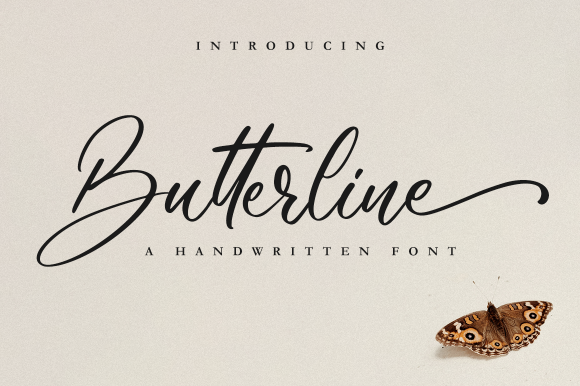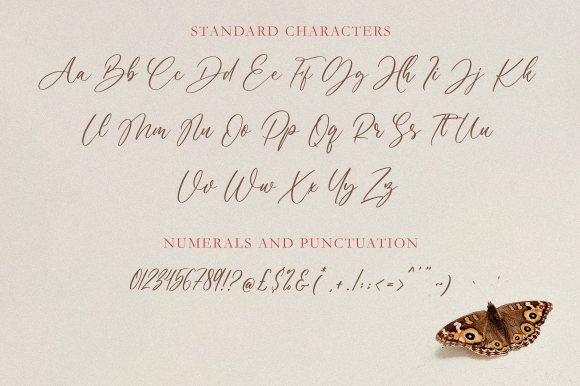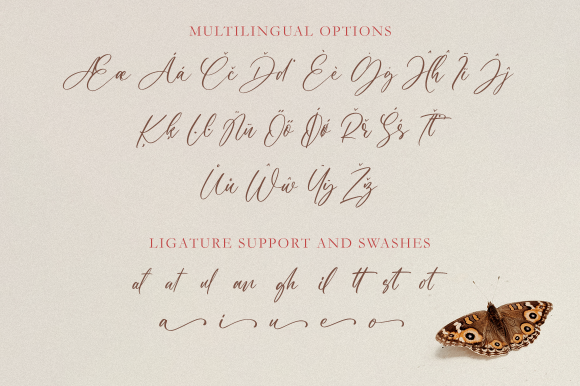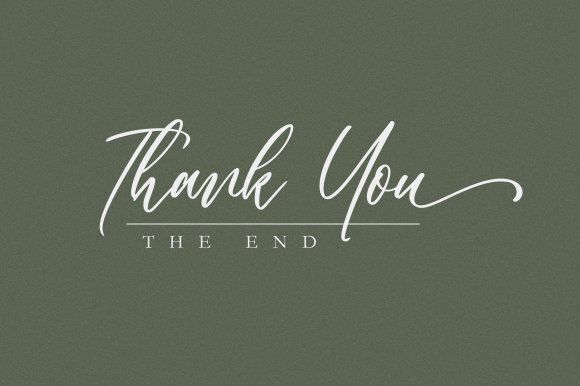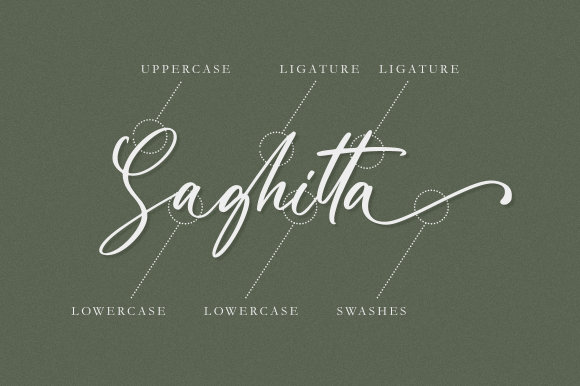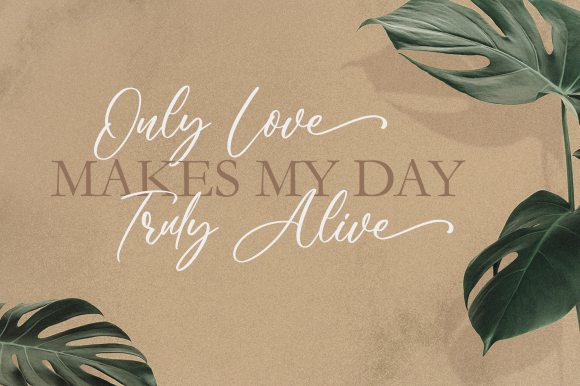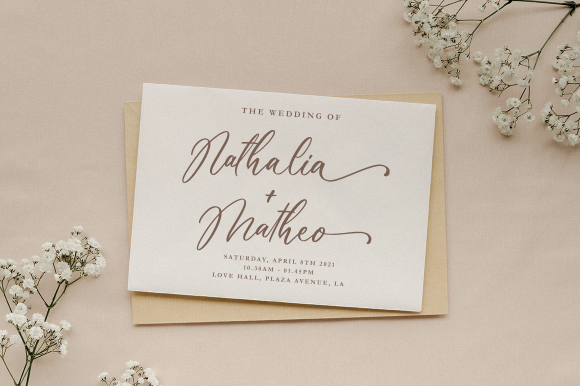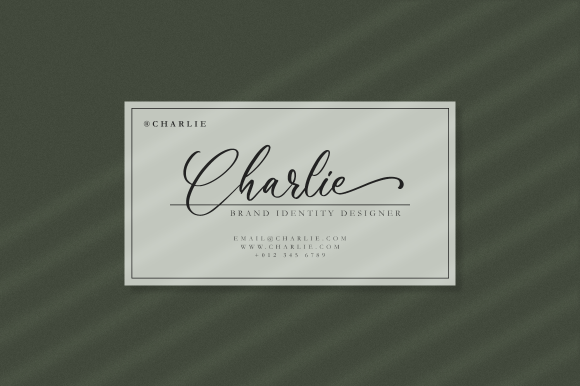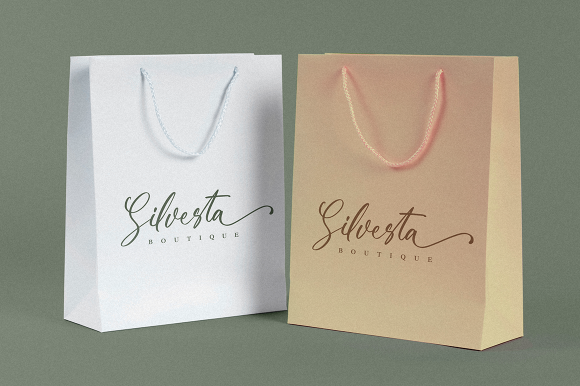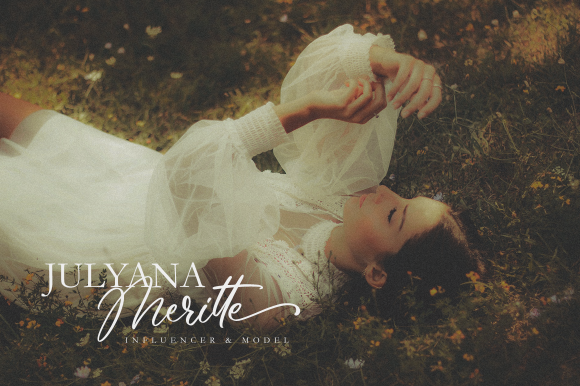
Butterline Font
About Butterline Font
Butterline is an elegant script font, that features a very delicate and classy look. Not too thin and not too thick, balanced and varied, this font was designed to enhance the beauty of your projects.